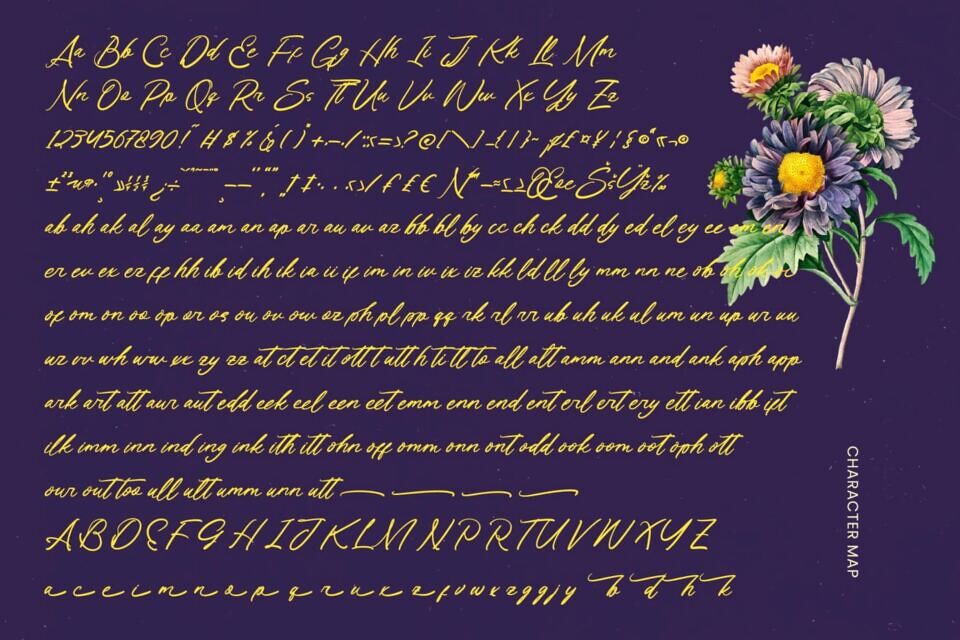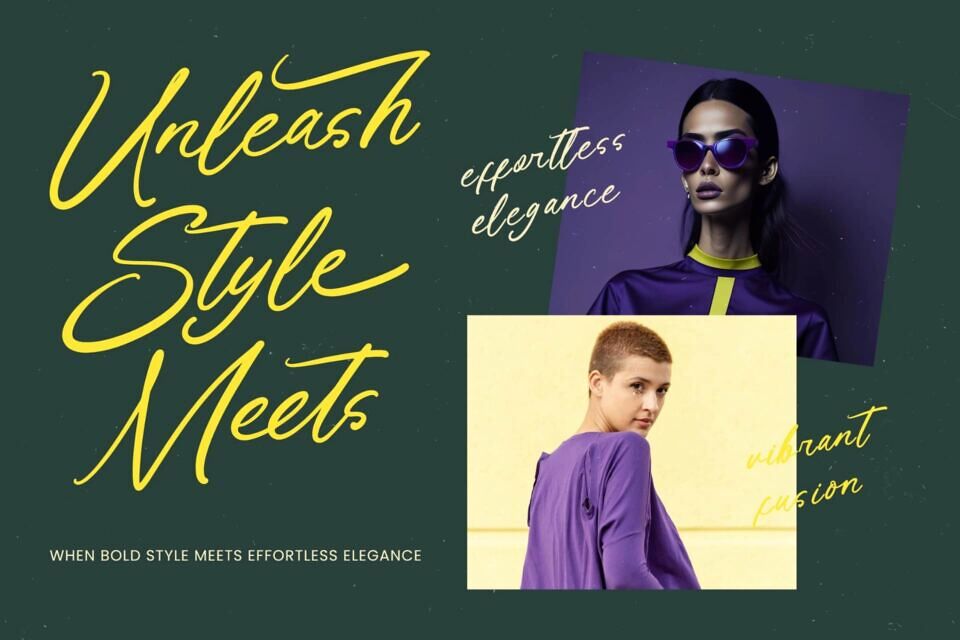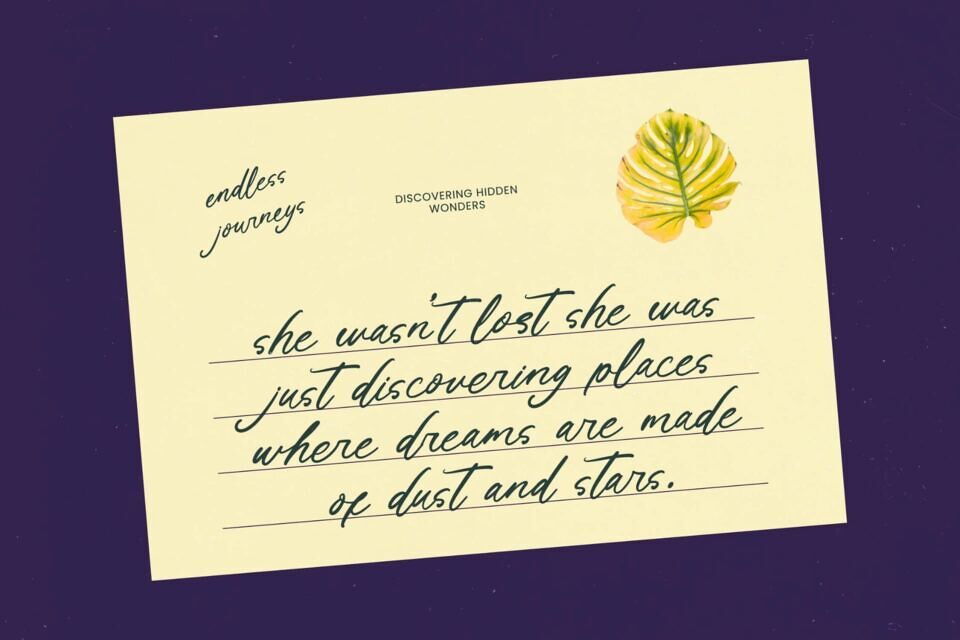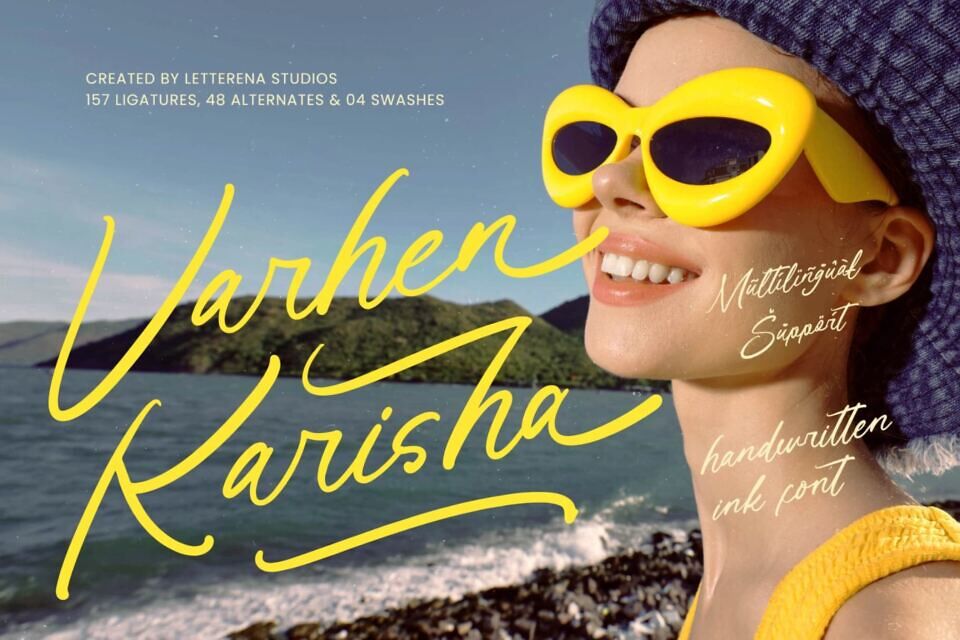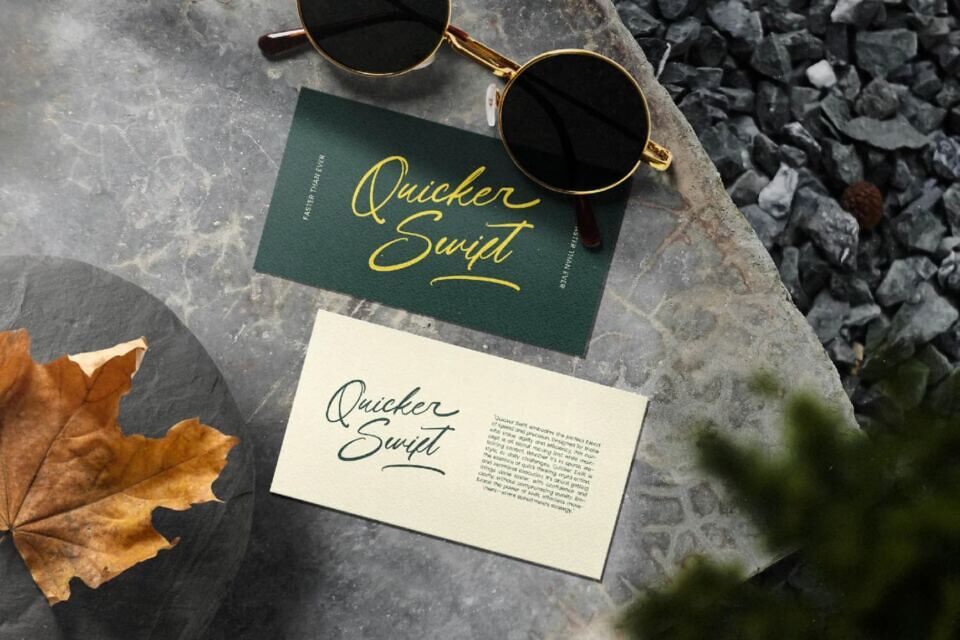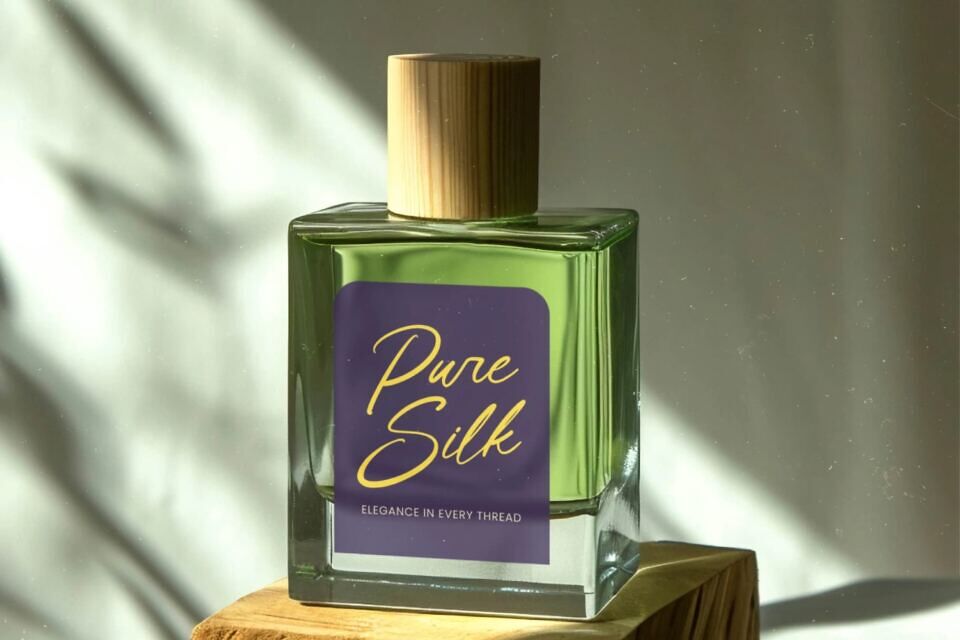
Varhen Karisha Font
Add a personal touch to your designs with Varhen Karisha, a handwritten font that combines natural elegance with professional flair. Its organic texture and refined calligraphy bring authenticity to your work.
With multilingual support, it’s perfect for global projects, maintaining a consistent brand identity. Use it for social media, wedding stationery, or photography overlays to add a human connection. This premium font blends modern style with timeless sophistication, making it a valuable investment for your design projects.